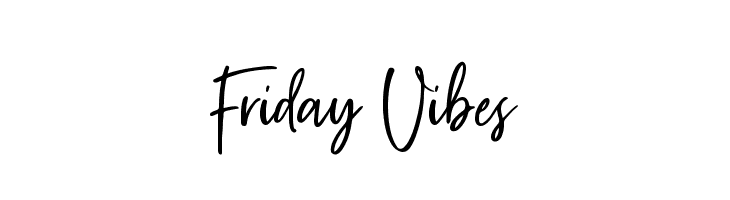
A lively, handwritten font with a casual and friendly style.
A modern, elegant handwritten font with medium contrast and fluid strokes.
A dynamic, expressive handwritten font with fluid, interconnected strokes.
A playful, casual handwritten font with smooth, flowing lines.
A lively, handwritten font with dynamic strokes and artistic flair.
A lively, handwritten script font with a playful and dynamic style.
A playful, handwritten font with a casual and dynamic style.